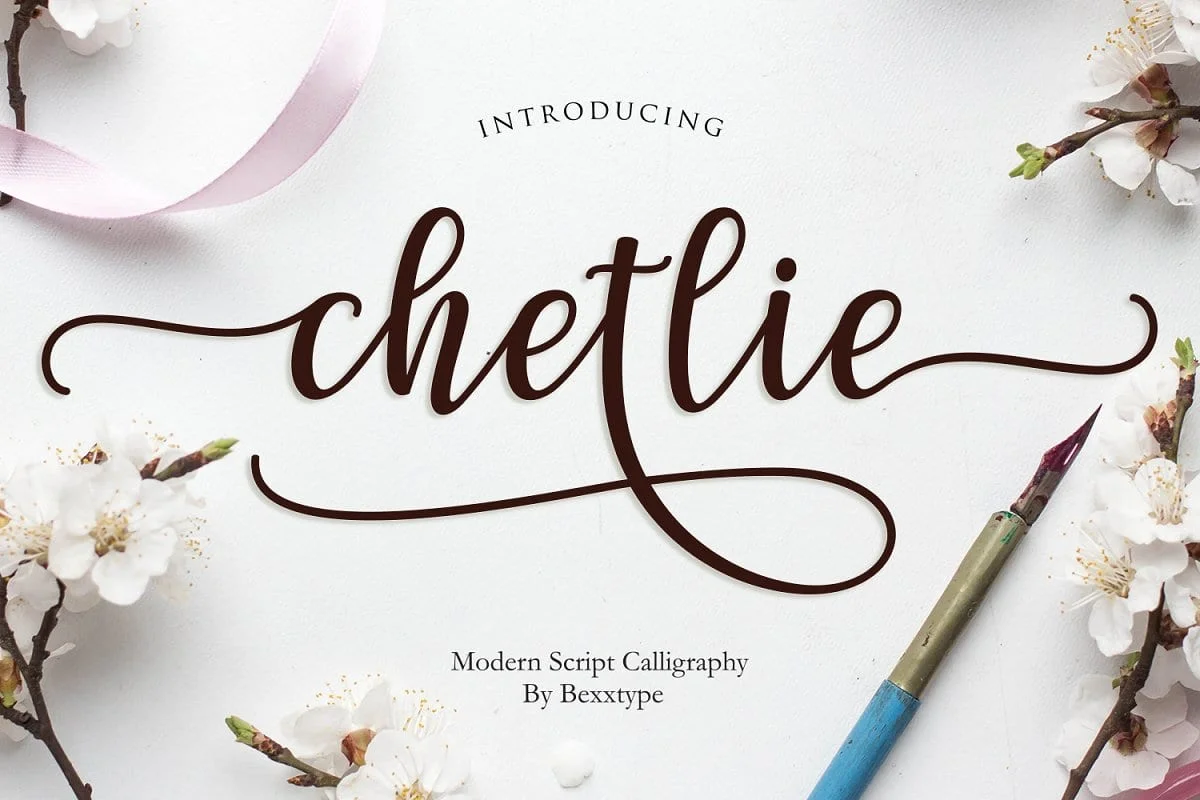
Chetlie Script Font
Chetlie Script Font is perfect for elegant wedding invitations, sophisticated branding projects, luxury product packaging, fashion logos, romantic greeting cards, beauty salon marketing, boutique signage, photography watermarks, feminine blog headers, stylish social media graphics, premium stationery designs, and any design project requiring a refined and graceful handwritten aesthetic.
What makes Chetlie Script Font exciting is its delicate elegance that combines contemporary calligraphy with timeless sophistication. The font's flowing strokes and refined letterforms create a sense of luxury and femininity, making it ideal for brands seeking to convey grace and high-end appeal. Its authentic handwritten quality adds personal intimacy while maintaining professional excellence, allowing designers to create visually stunning content that connects emotionally with audiences who appreciate beauty and craftsmanship.
The Chetlie Script Font family typically includes uppercase and lowercase characters, numerals, punctuation marks, ligatures, stylistic alternates, and elegant swashes that enhance its calligraphic charm.